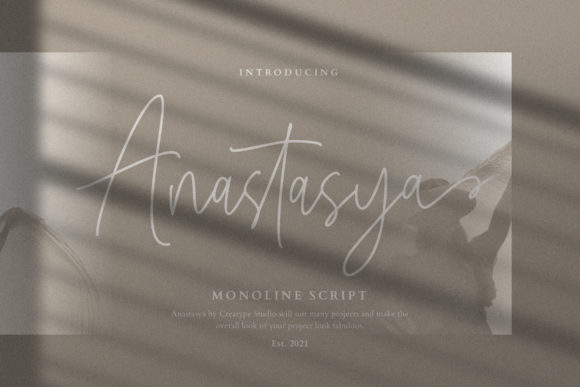
Dive into the world of elegance and sophistication with Anastasya Script Font, the epitome of beauty and refinement. This captivating script font exudes class and modernity, making it the perfect choice for transforming your creative projects into masterpieces.
Step into a world of possibilities with Anastasya Script, a font that sparks imagination and ignites creativity. Let your words dance upon the page with a touch of grace and allure, as this font elevates your designs to new heights of sophistication.
With endless applications, Anastasya Script Font stands ready to elevate your logos, branding, invitations, stationery, wedding designs, and social media posts. Its versatility knows no bounds, allowing you to weave a tapestry of visual enchantment across a myriad of platforms.
Anastasya Script is meticulously crafted to capture the essence of elegance, ensuring that every letter, every stroke, and every curve radiates charm and sophistication. Its modern aesthetic adds a touch of contemporary flair, making it the perfect choice for those seeking to make a statement with their designs.
Unlock the full potential of Anastasya Script Font with its PUA encoding, granting you effortless access to a treasure trove of glyphs and ligatures. Unleash your creativity and explore a world of limitless possibilities, as this font becomes your trusted companion in crafting designs that captivate and inspire.
Dare to embrace the allure of Anastasya Script Font, and embark on a journey of creative expression like never before. Let your designs blossom with elegance, charm, and a touch of modern sophistication. Make a lasting impression with Anastasya Script, the font that elevates your artistry to new heights of excellence.